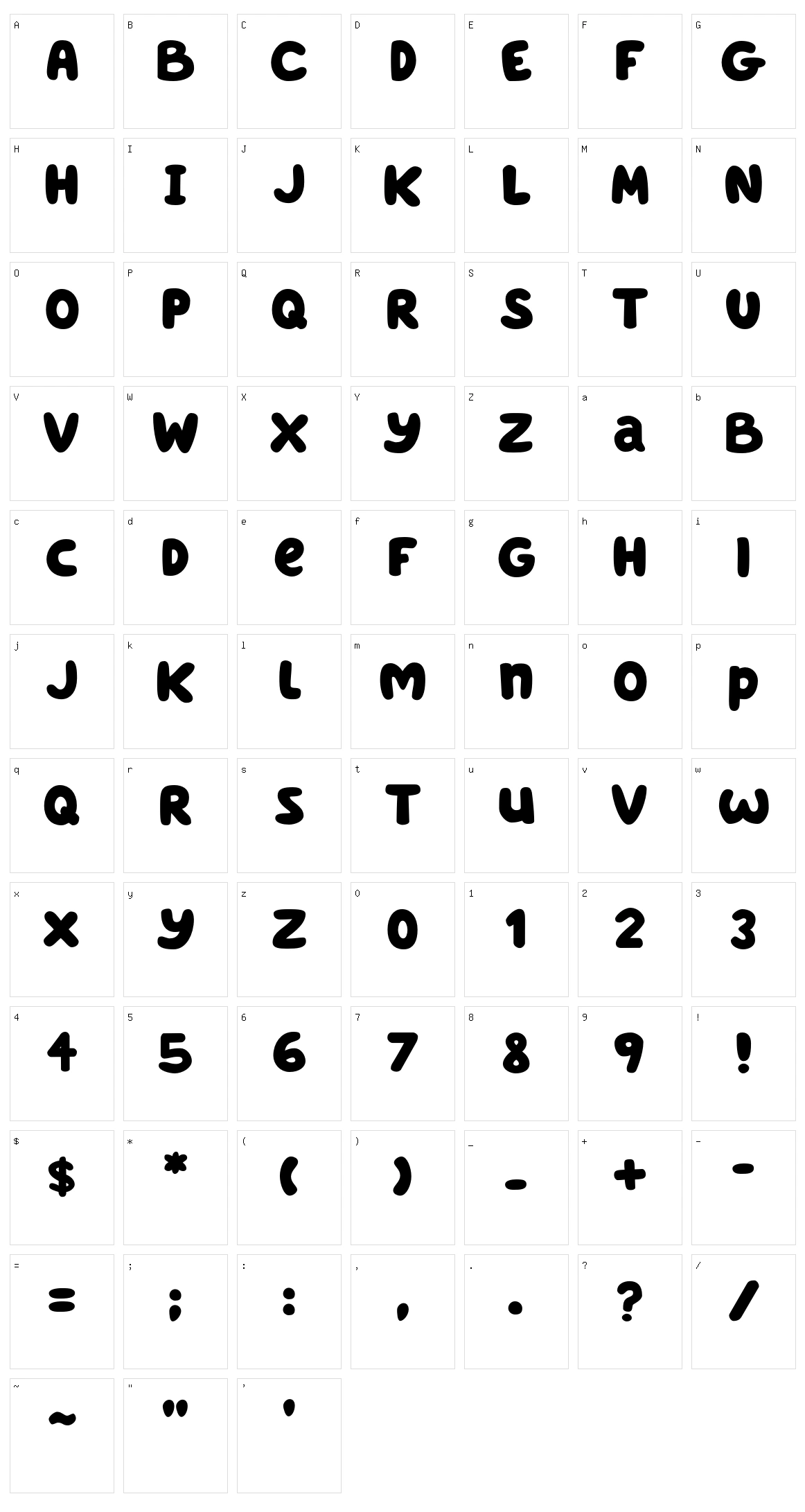
The free font Blue Custard is carefully designed by rockcake, showcasing a thoughtful balance of creativity and usability and falls under the Cartoon font style. When you download the ZIP file, it contains only 14.55 KB of font files, making it lightweight and quick to download. Please review the license details below to understand permitted usage and distribution rights. If license information is not available, we recommend using this font for personal projects only or contacting the author directly for commercial usage permissions.